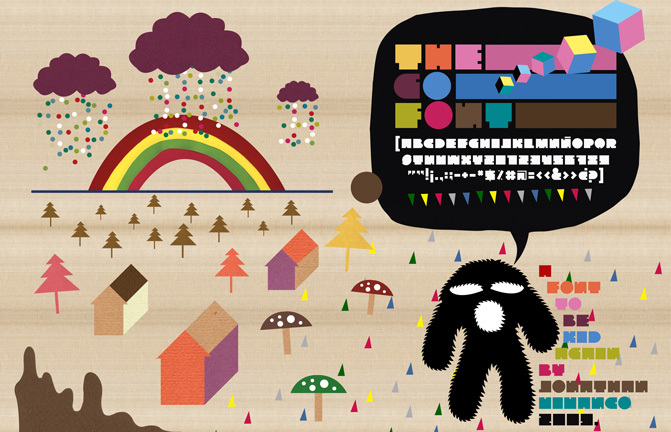
TheGoFont by Jonathan Vivanco is a free geometric techno display font built from massive, tightly fitted shapes. Its letters alternate between squared blocks and near-perfect curves, with small rectangular cuts breaking into several forms. The result resembles a compact set of machine parts, direct and deliberately oversized.
Packaging is a natural medium for this lettering, particularly on gaming accessories or electronic products, and its blunt silhouette also suits posters and music merchandise. Across those applications, the repeated notches and basic geometry can become part of a system of panels, icons, and industrial graphics rather than serving as neutral text.